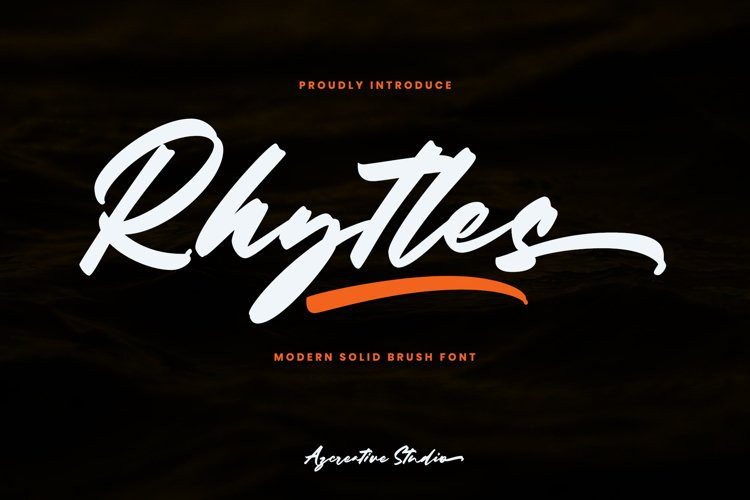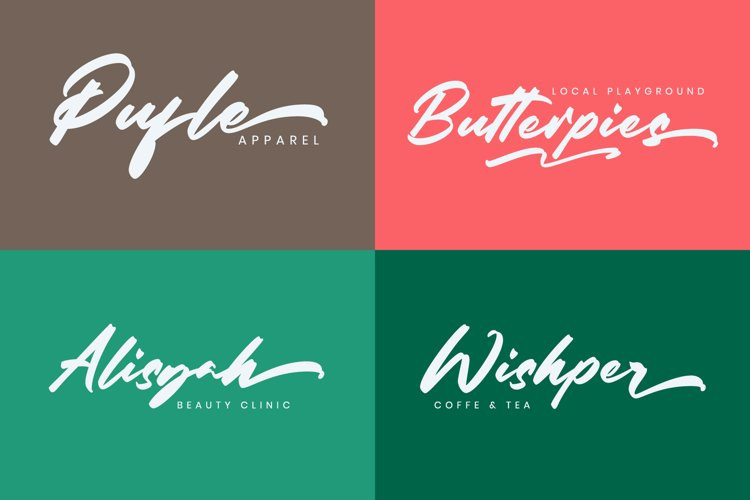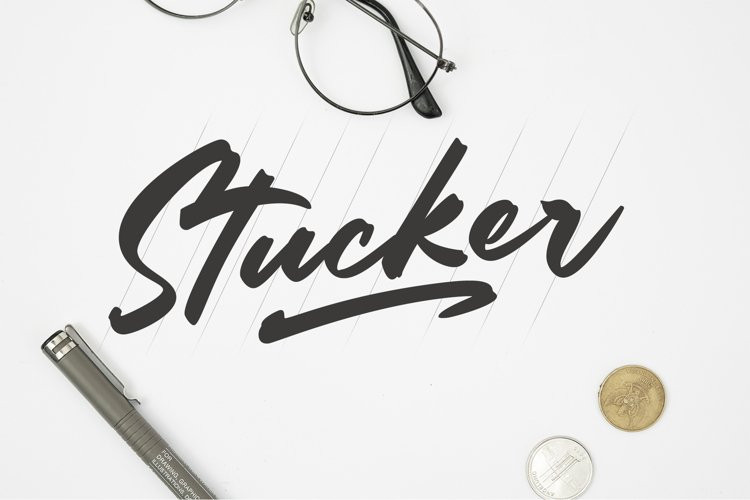
Rhytles Font
Rhytles FontIntroducing Rhytles, a modern solid brush font that’s natural and aesthetic. A font that is perfect for those of you who want a solid and bold writing style. This font is suitable for those of you who want to create a logo with a typographic logo style, or for those of you who want to create a brand name for your product and this font is also suitable for placing on the cover of a poster, magazine, website headline, advertising headline and many more.